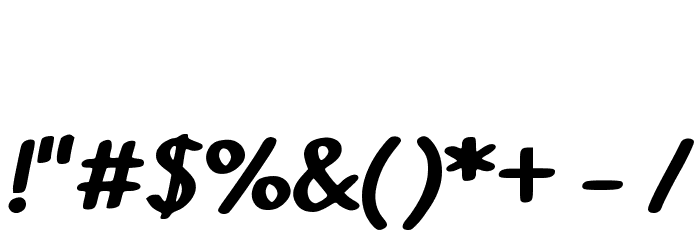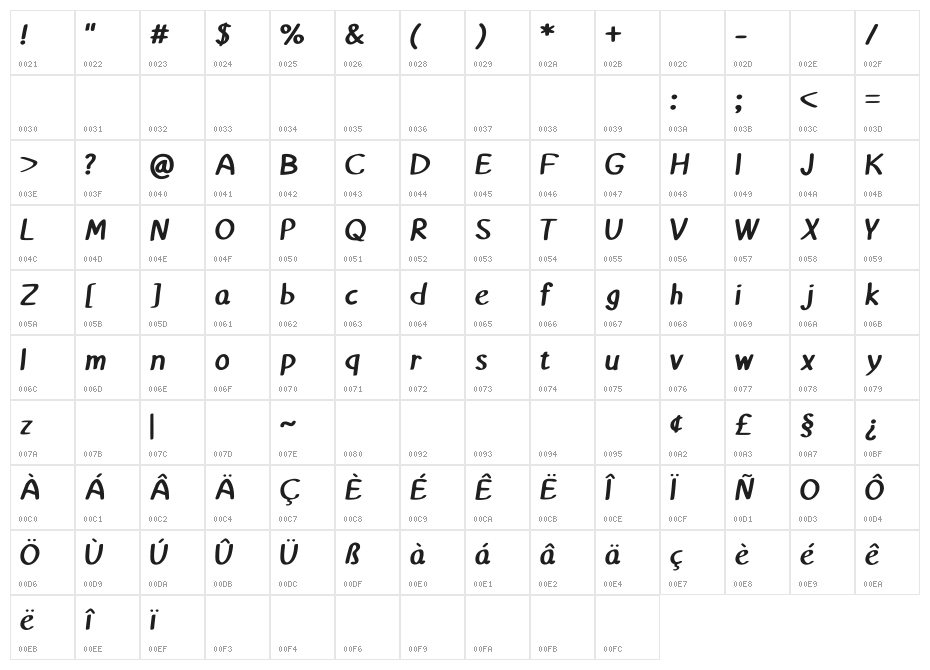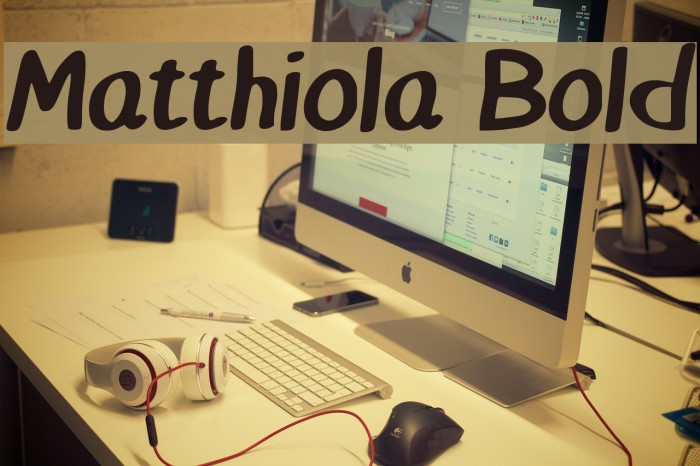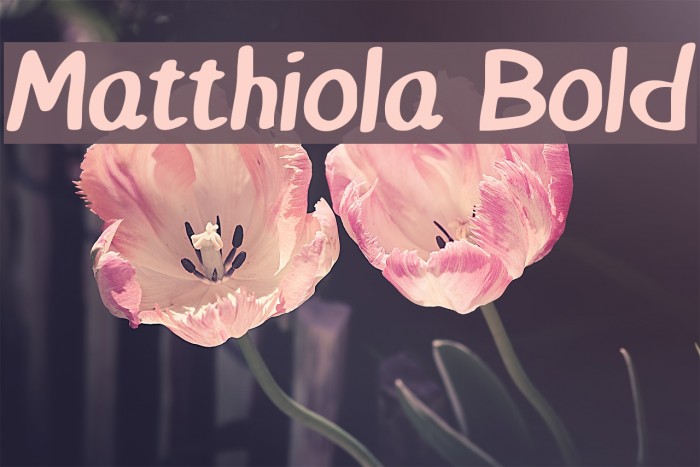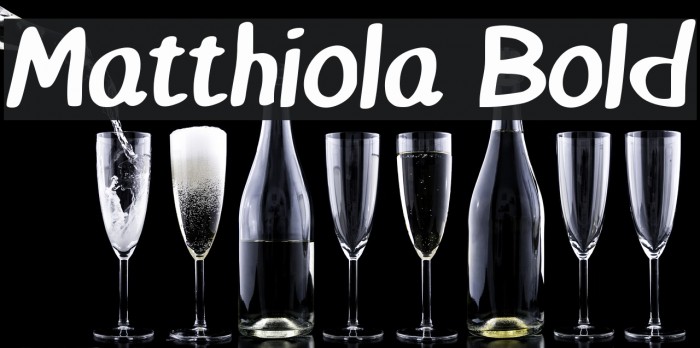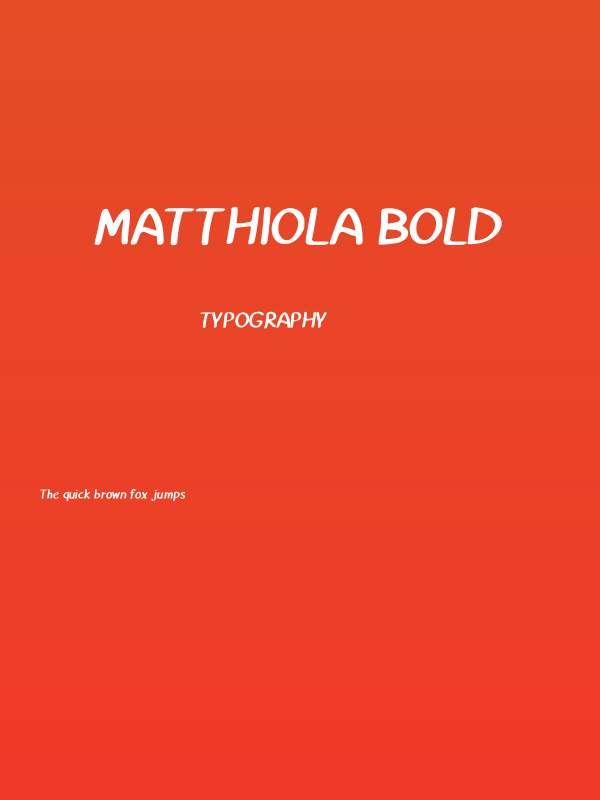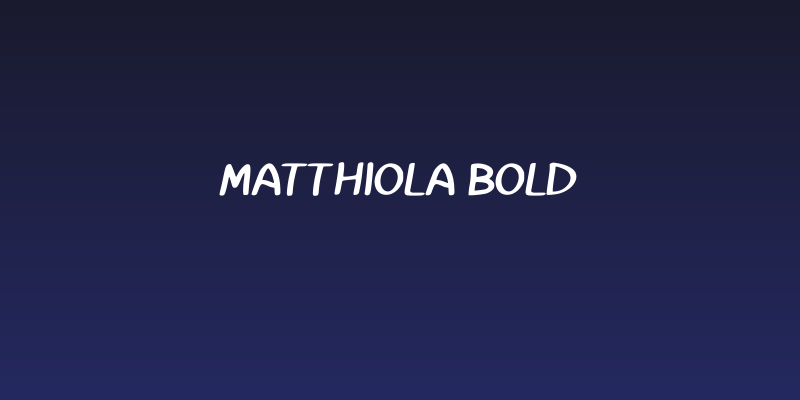
Matthiola Bold Font
Matthiola Bold Description
This font features a bold and dynamic style with a handwritten appearance, characterized by smooth curves and a slightly slanted orientation. The uppercase letters are prominent and well-defined, while the lowercase letters maintain a consistent flow, enhancing readability. The numerals and special characters are crafted to match the overall aesthetic, providing a cohesive look. Its playful yet professional design makes it suitable for a variety of creative applications.